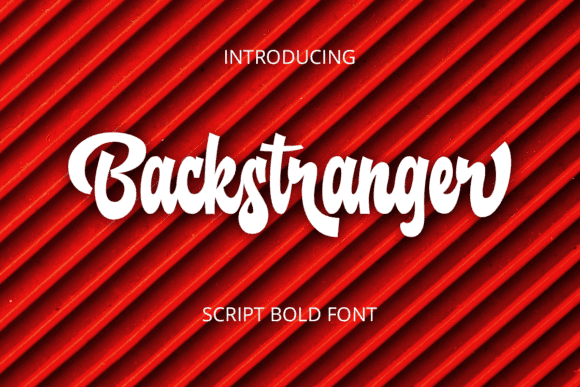
Backstranger Font for Crafting, Logos and Print Projects
Backstranger is a display-style font designed for creators who want to make a statement. Ideal for use in logos, product labels, and printed materials, it delivers a powerful aesthetic with its sharp styling and bold presence.
Whether you're building a brand, crafting custom merchandise, or designing standout visuals, Backstranger delivers the typographic punch your projects need.
- Logo designs and brand visuals
- Merchandise and product packaging
- Posters, flyers, and signage
- Stickers and custom prints
- Apparel and promotional graphics
- High-impact design perfect for branding
- Versatile for both print and digital use
- Bold curves that draw attention
Q: What type of font is Backstranger?
A: Backstranger is a bold display font created for crafting, logos, and print designs that need to stand out. With its unique character shapes and striking presence, Backstranger is perfect for capturing attention in any project. Designers often consider it a battalion commander font for logos, as it evokes a sense of authority and confidence. Whether used for headlines or branding, this font is guaranteed to make a lasting impression. Its striking letterforms and unique character make it a perfect choice for any project that aims to capture attention. Whether you're designing a vibrant poster or an eye-catching logo, this typeface elevates the aesthetic with its artistic flair. As a charrie font for creative designs, Backstranger effortlessly combines style and personality, making it an essential tool for designers.
Q: Can it be used for apparel and merchandise?
A: Absolutely. It’s great for bold t-shirt prints, labels, and product visuals.